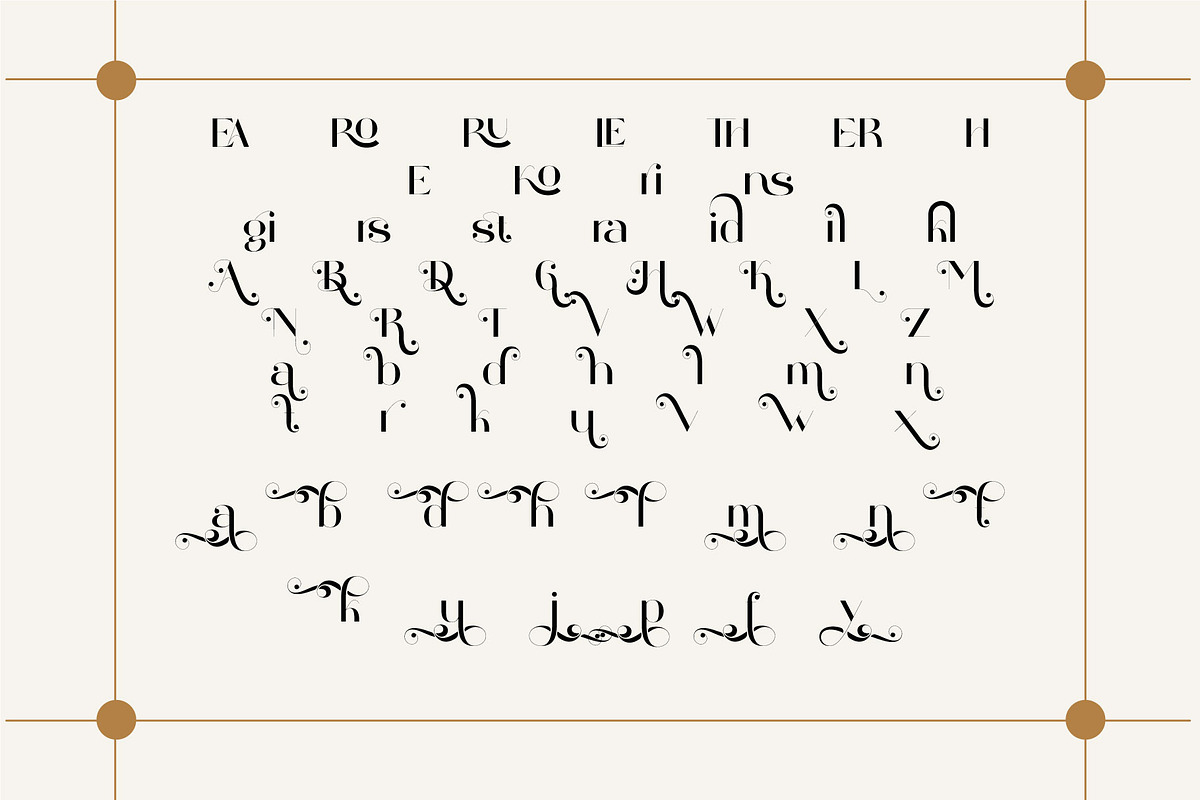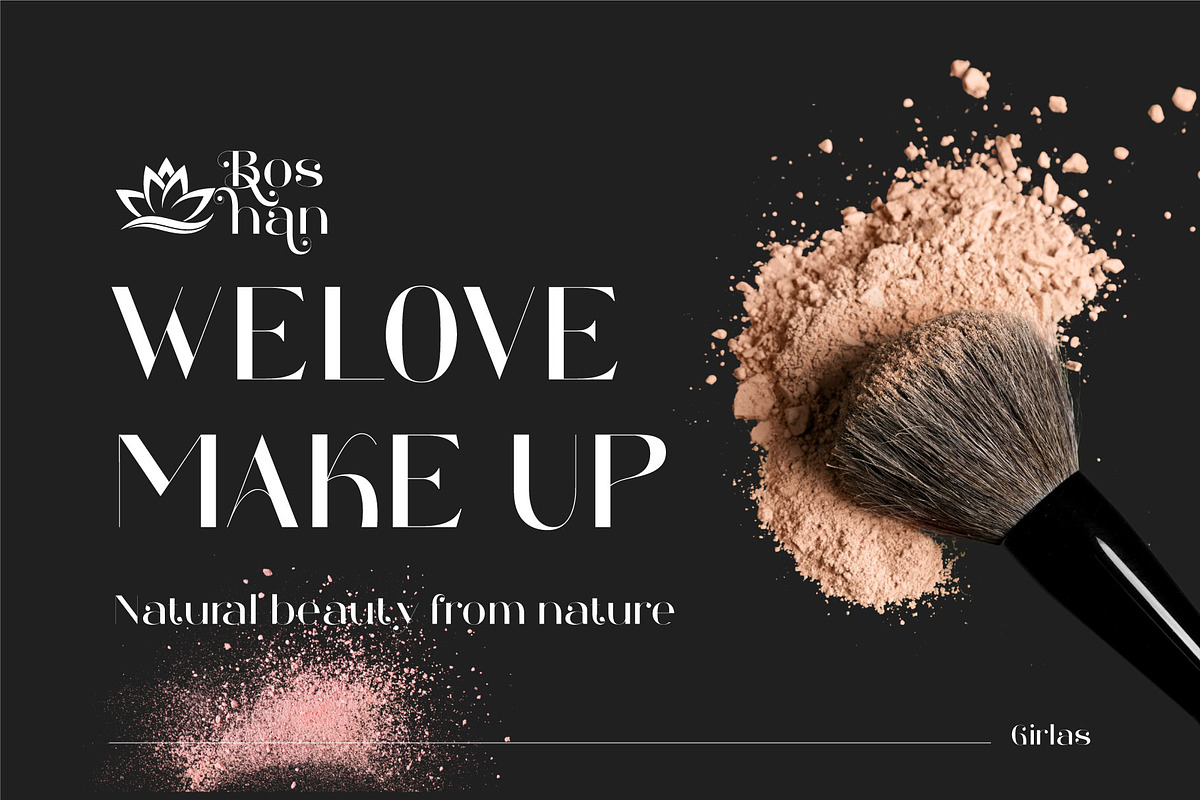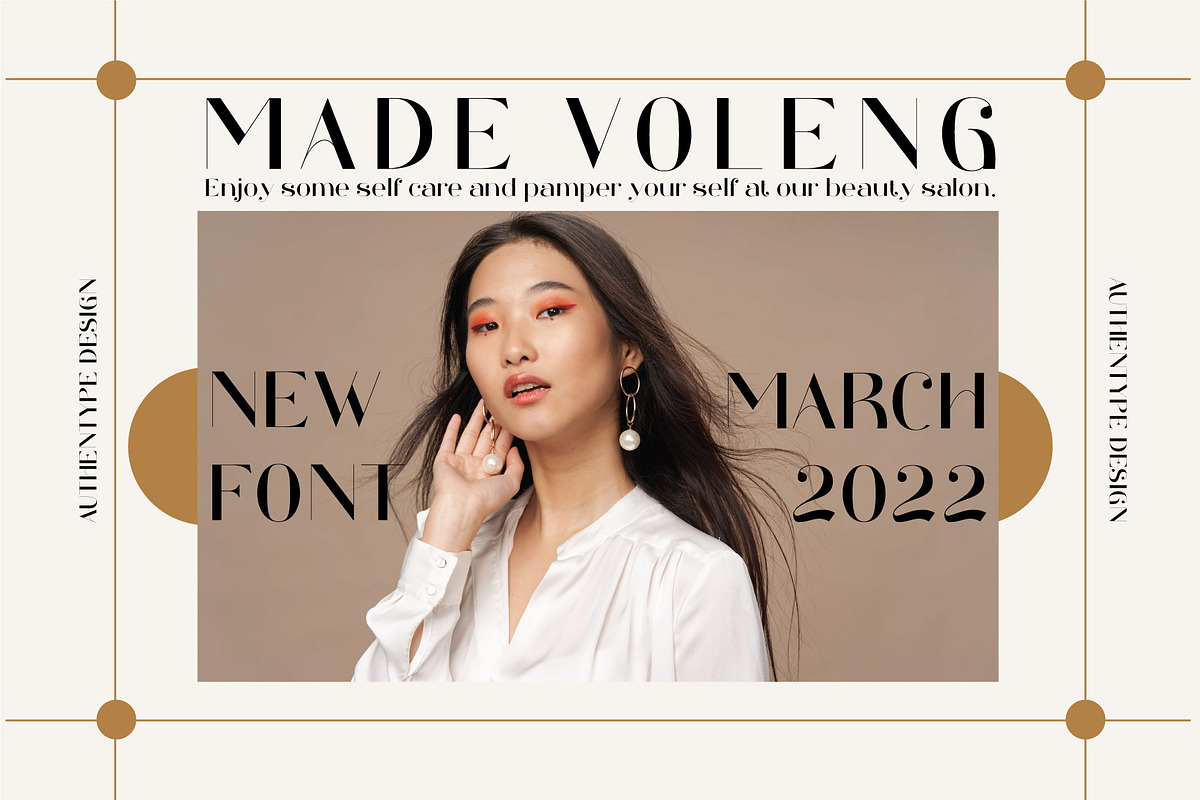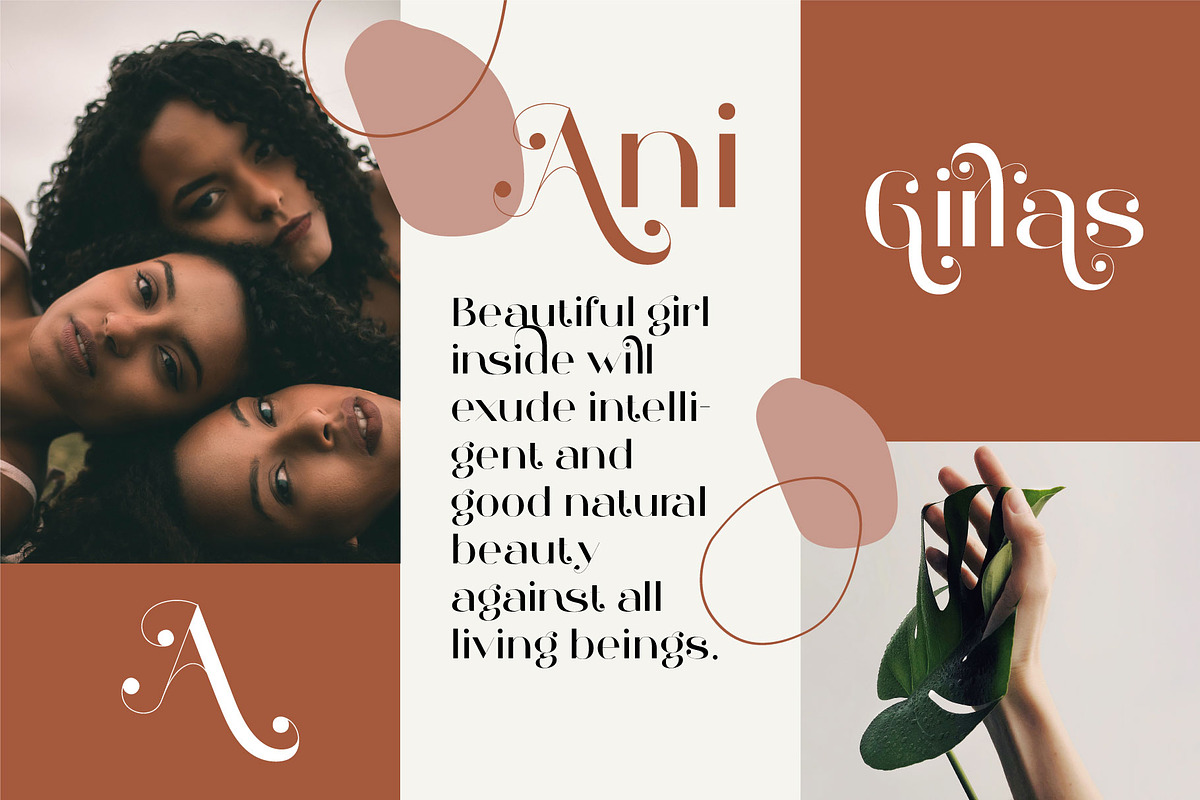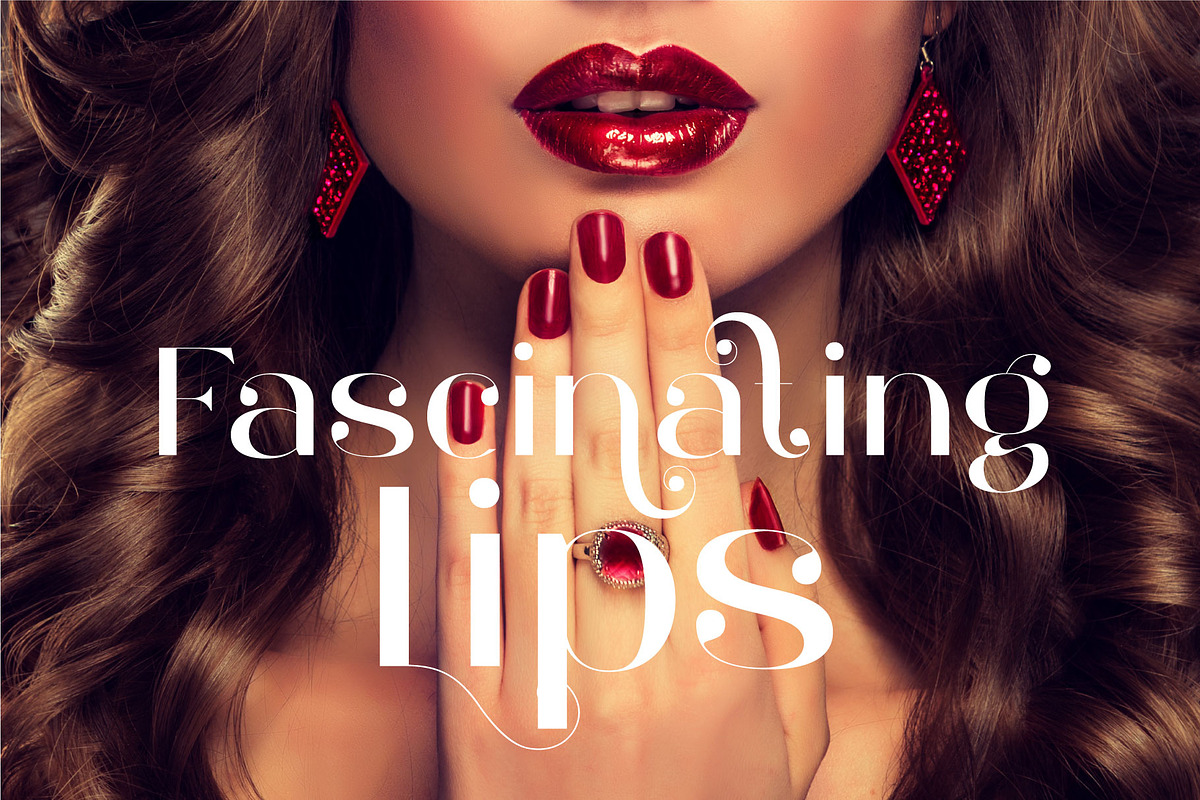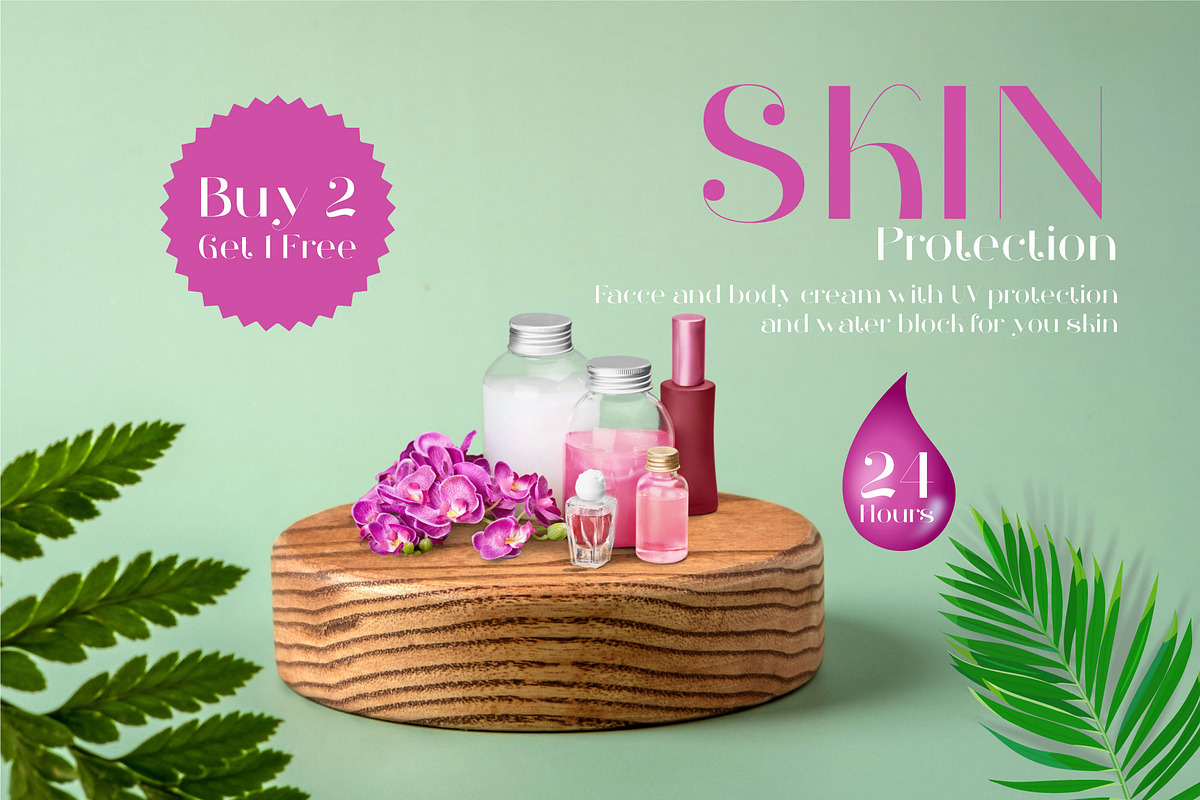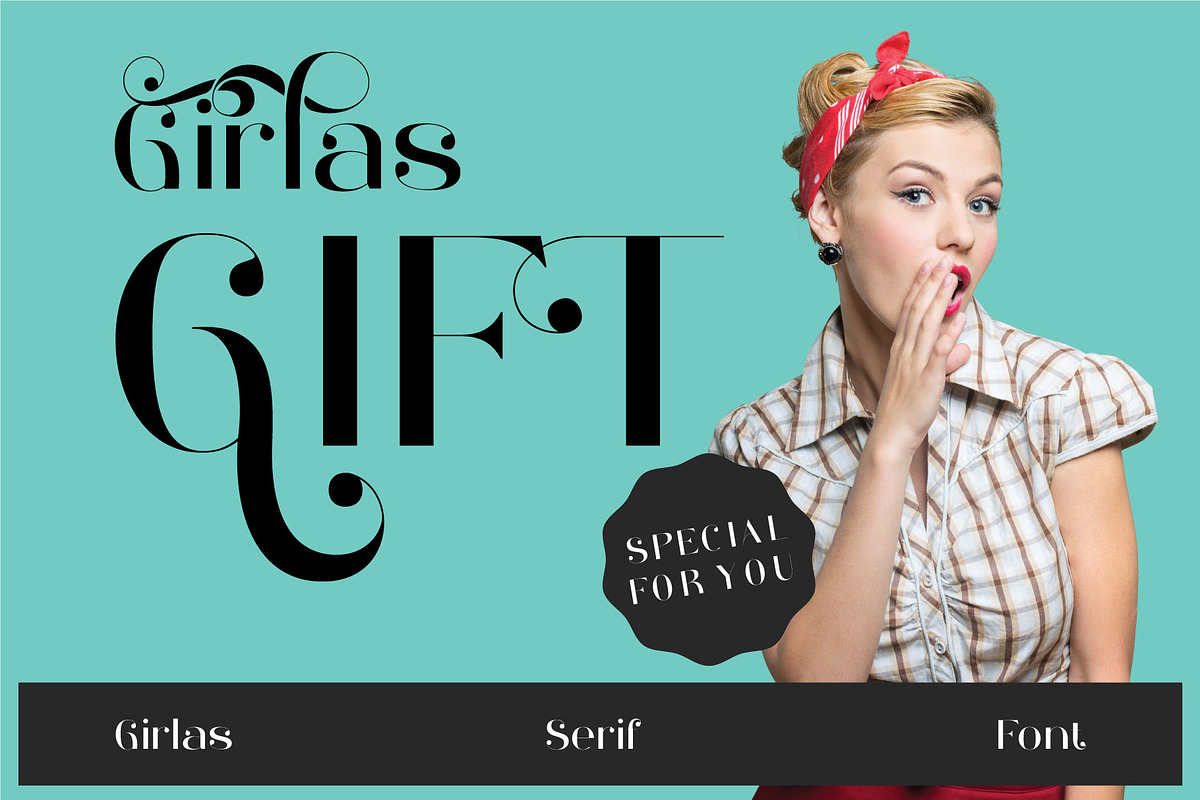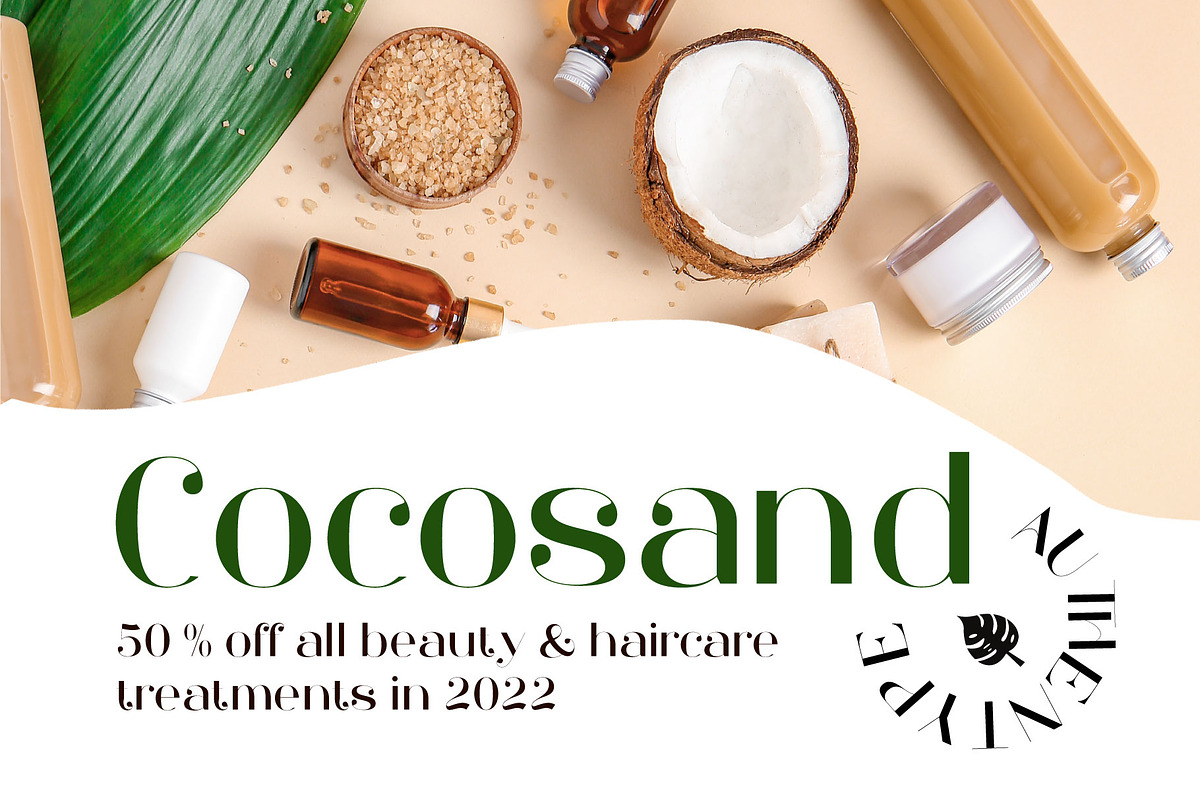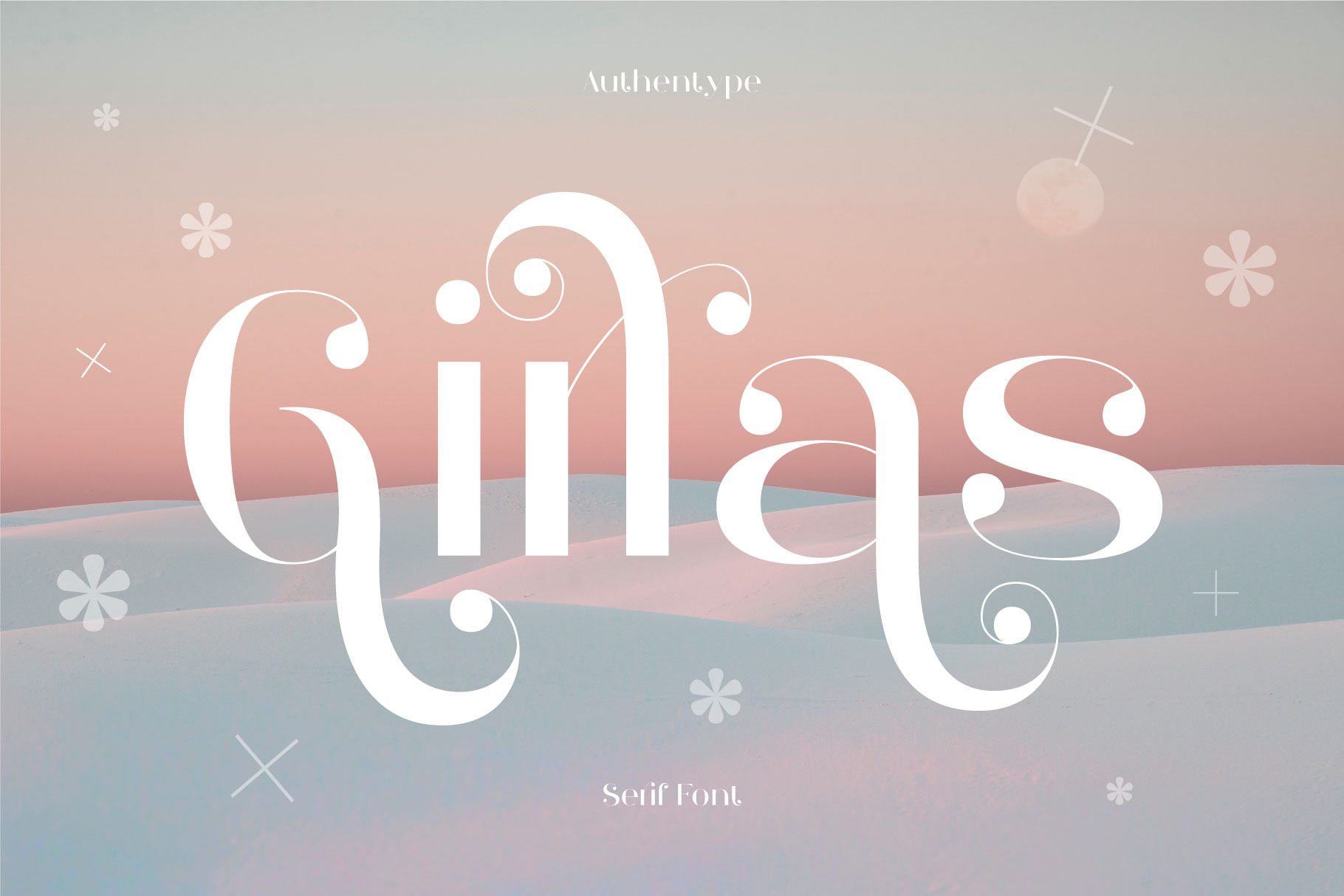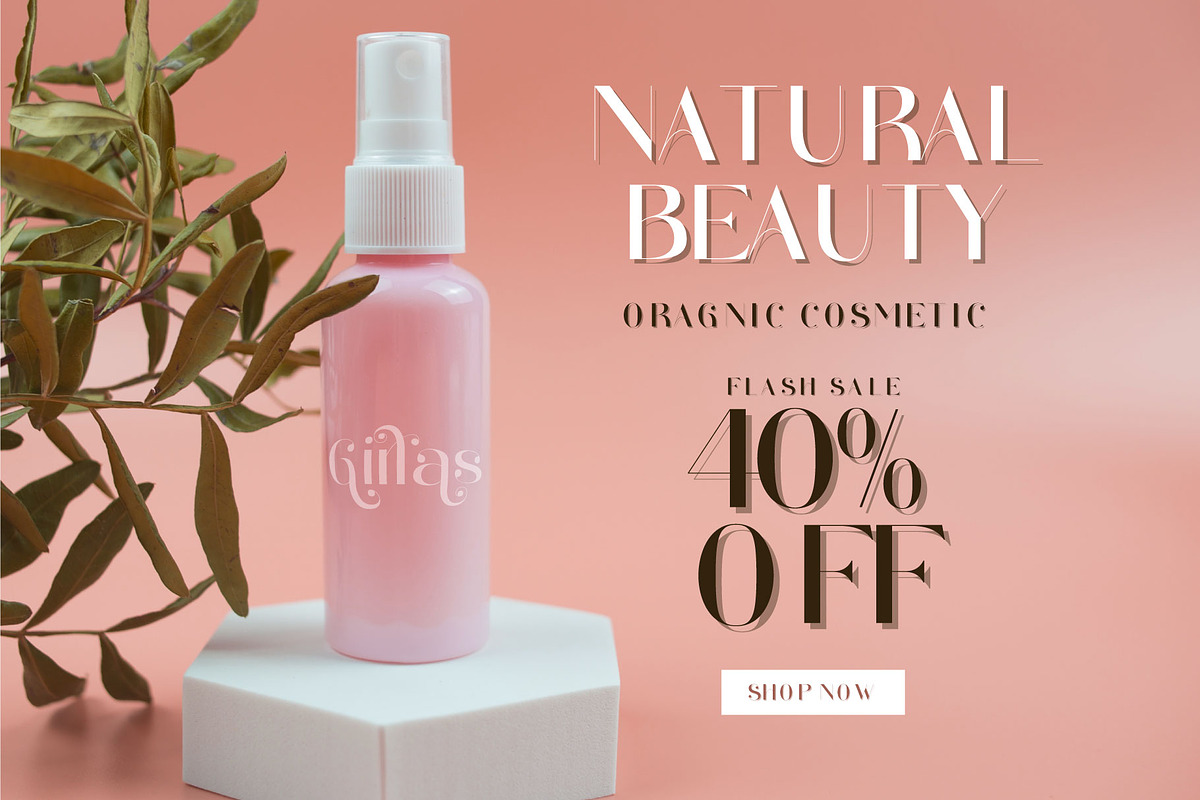
Girlas - Elegant Serif Font
Girlas elegant serif font is a beautiful high contrast font. Girlas work well for beauty product branding because girlas contain a variety of letters and ligatures that add a feminine feel to your designs.
- Standard glyphs uppercase and lowercase letters
- Numerals, a large range of punctuation and ligatures.
- Swashes, Stylistic Set
- Multilingual support for; ä ö ü Ä Ö Ü ß ¿¡